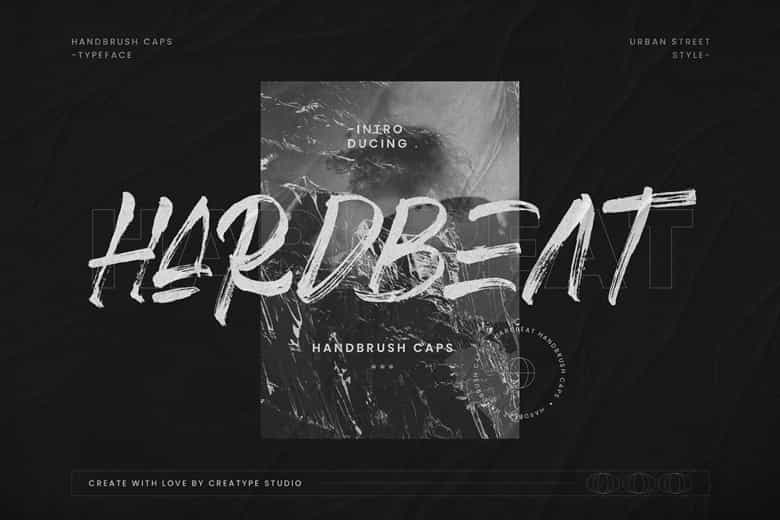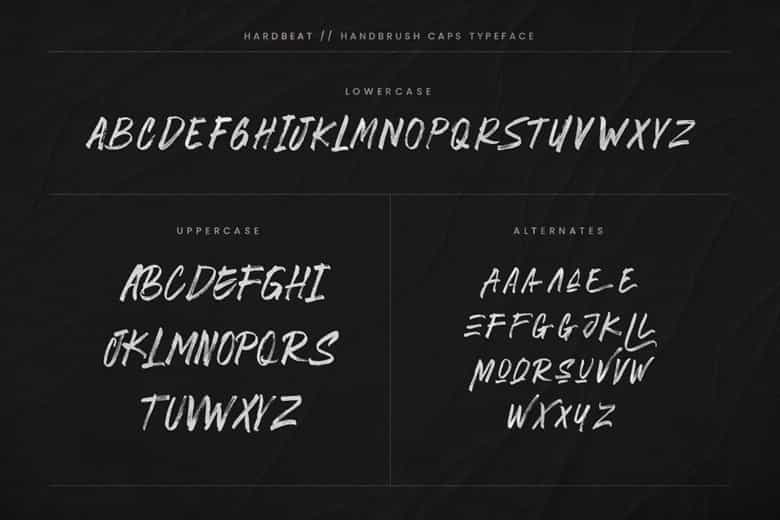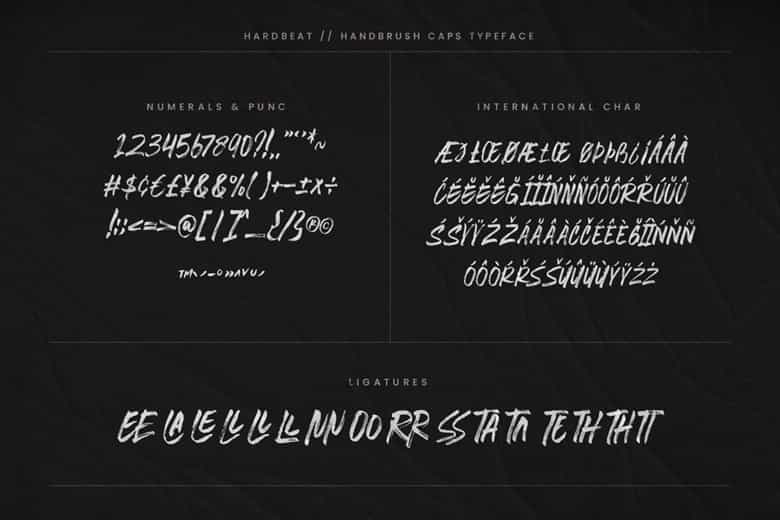
Hardbeat is a hand brush caps script font which looks very active and conveys an energetic message. When viewed with very distinct hand strokes, the overall texture of this font feels so detailed and heavy handed.